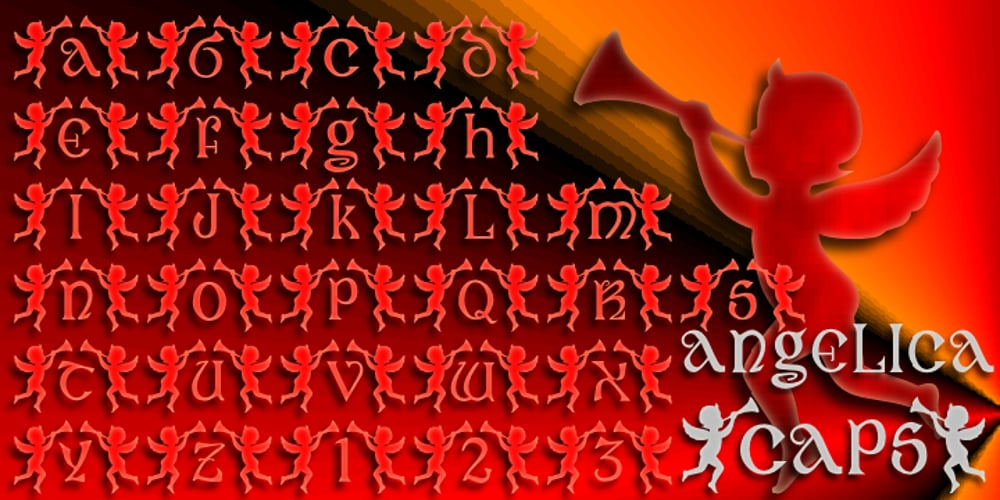
Angelica
Angelica font
Angelica Font Family was designed by Denise Koehler and published by Deniart Systems. Angelica contains 1 styles and family package options. Let the angels adorn your documents. This series features a string of celtic style letters surrounded by angels – whether you need chapter headings or drop caps, these angels are sure to give your documents a celestial flair.